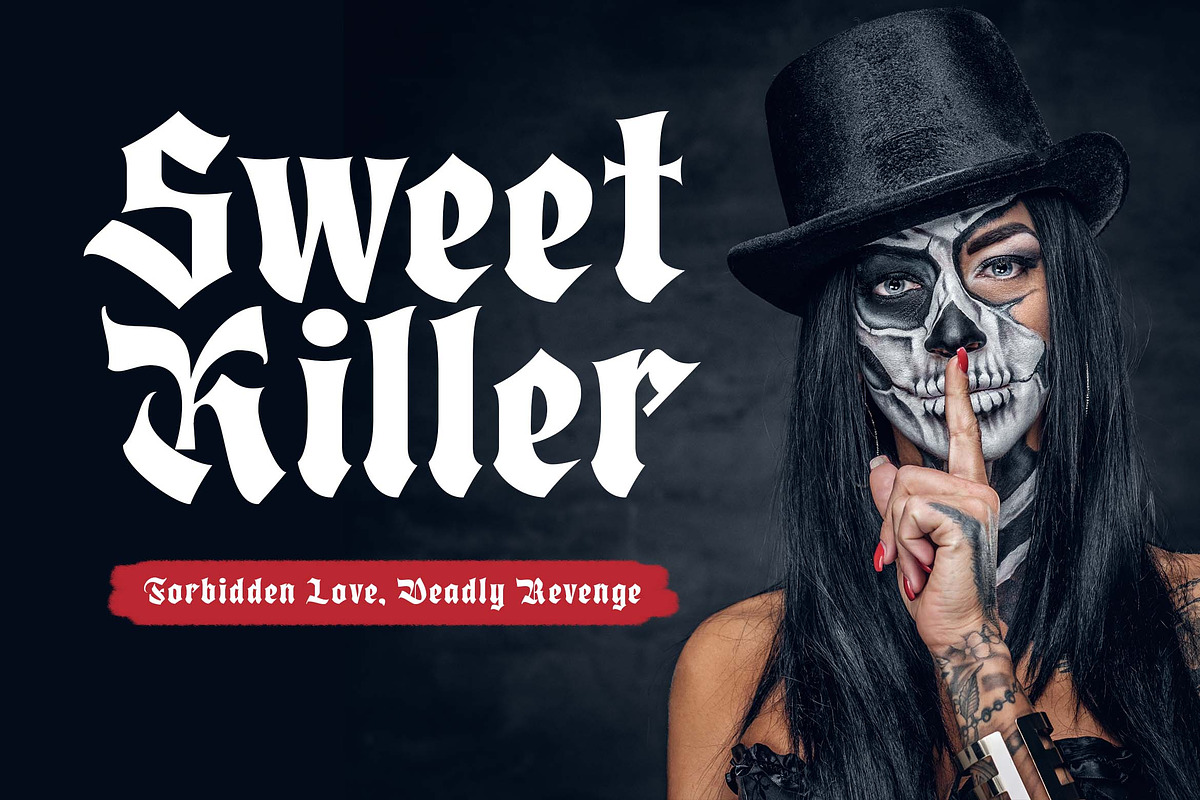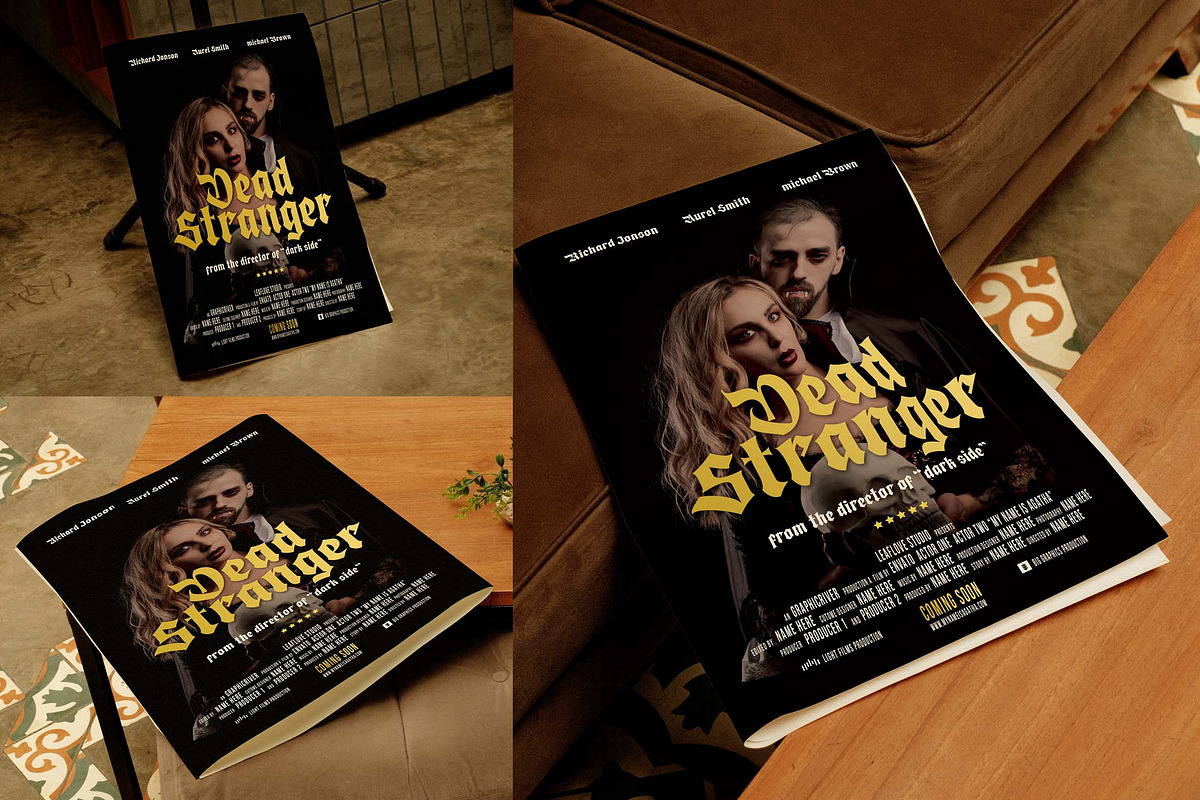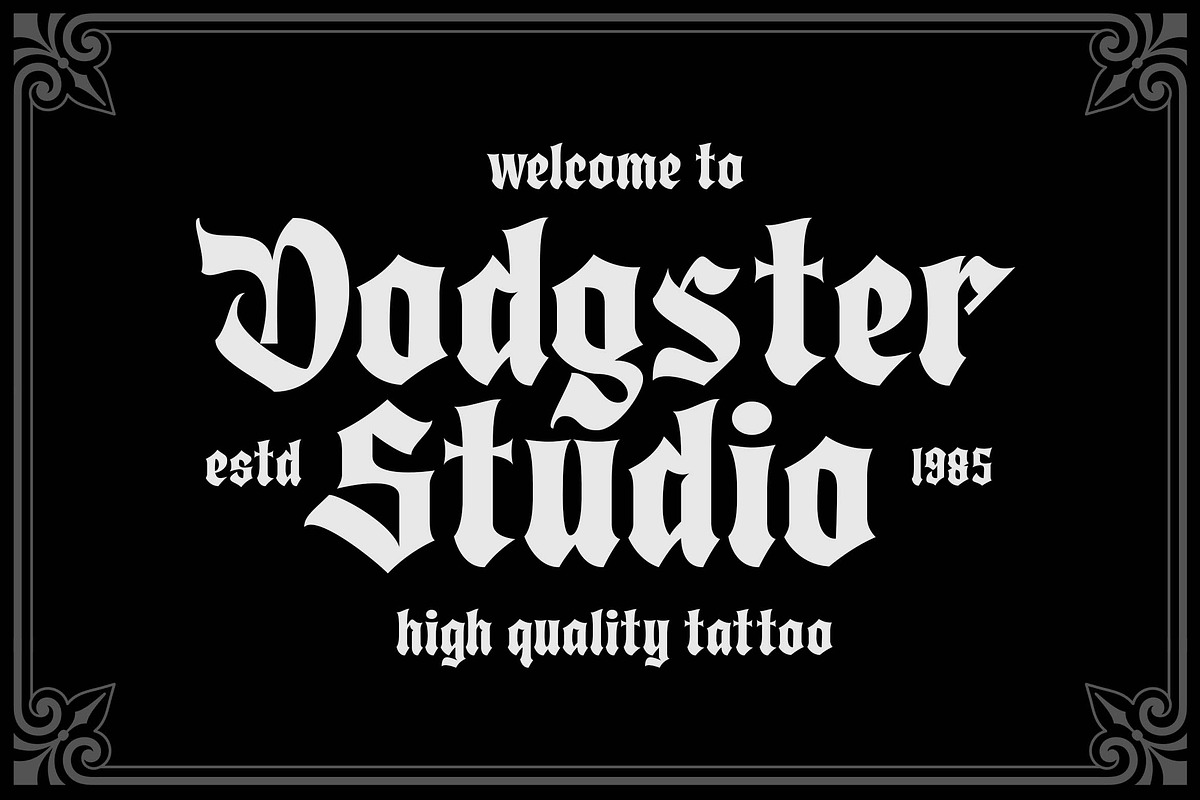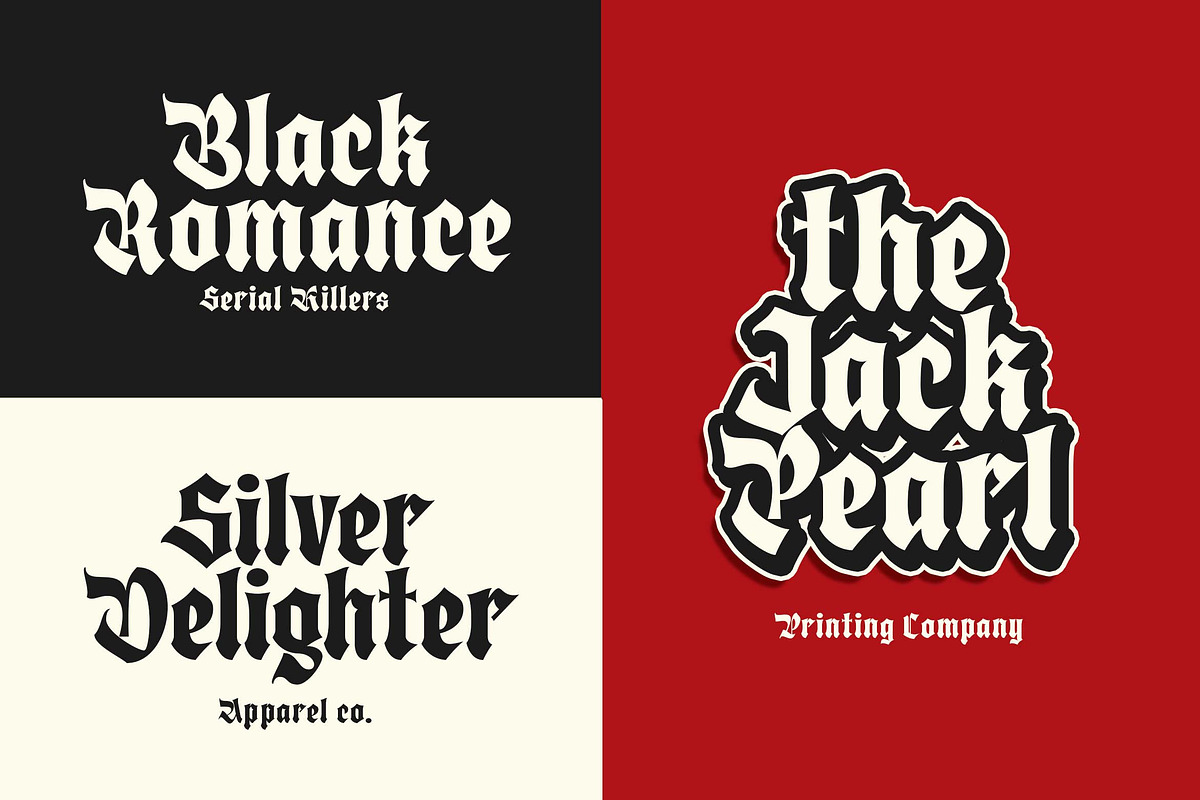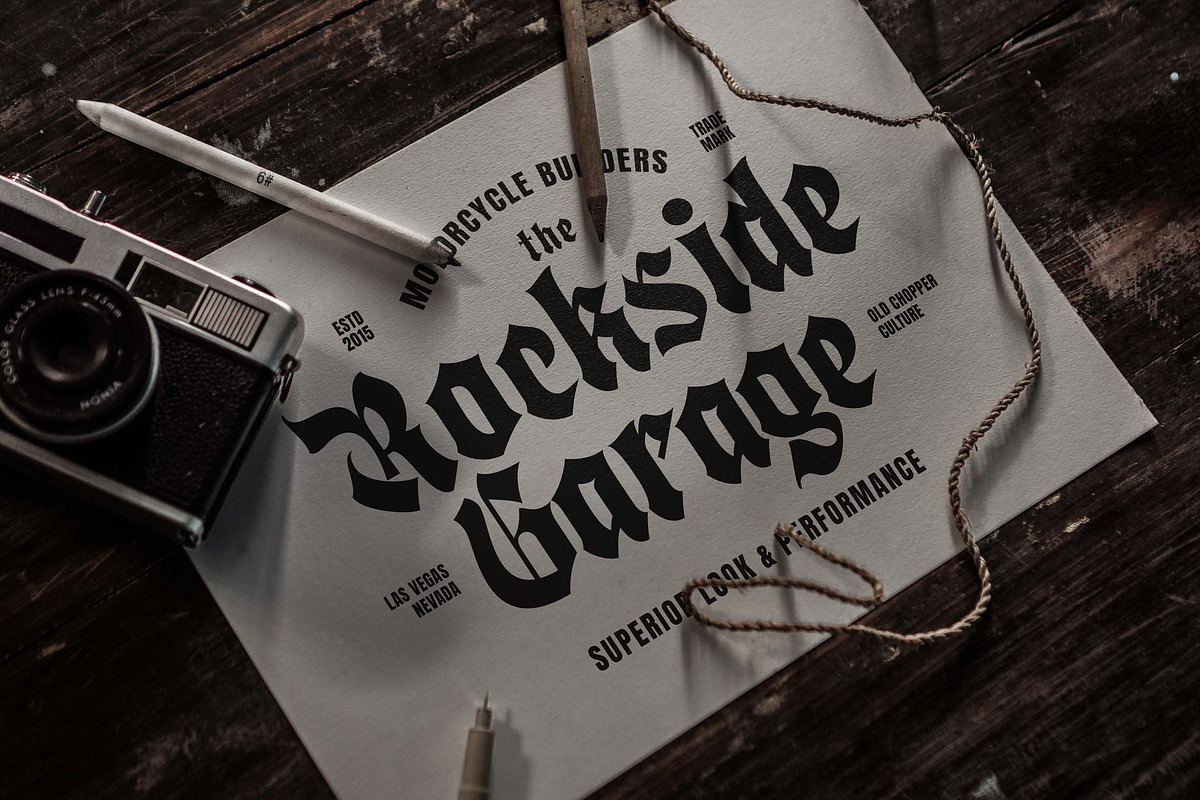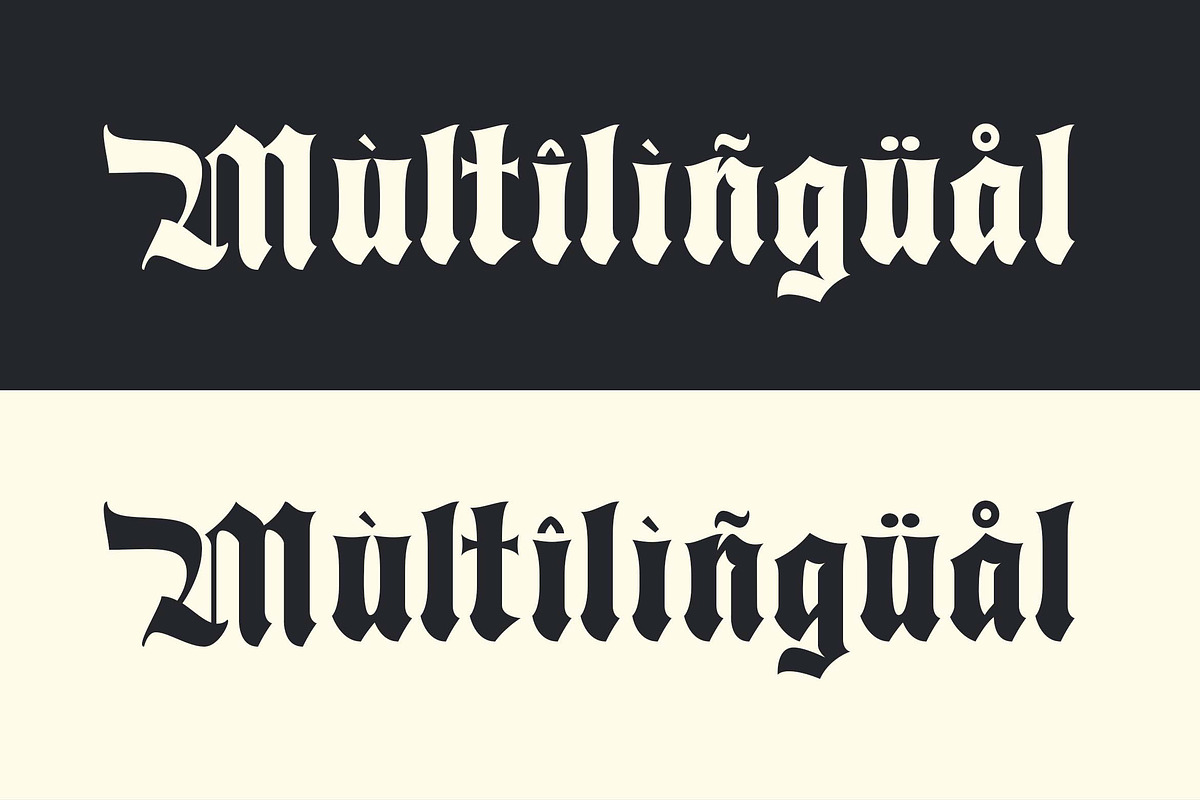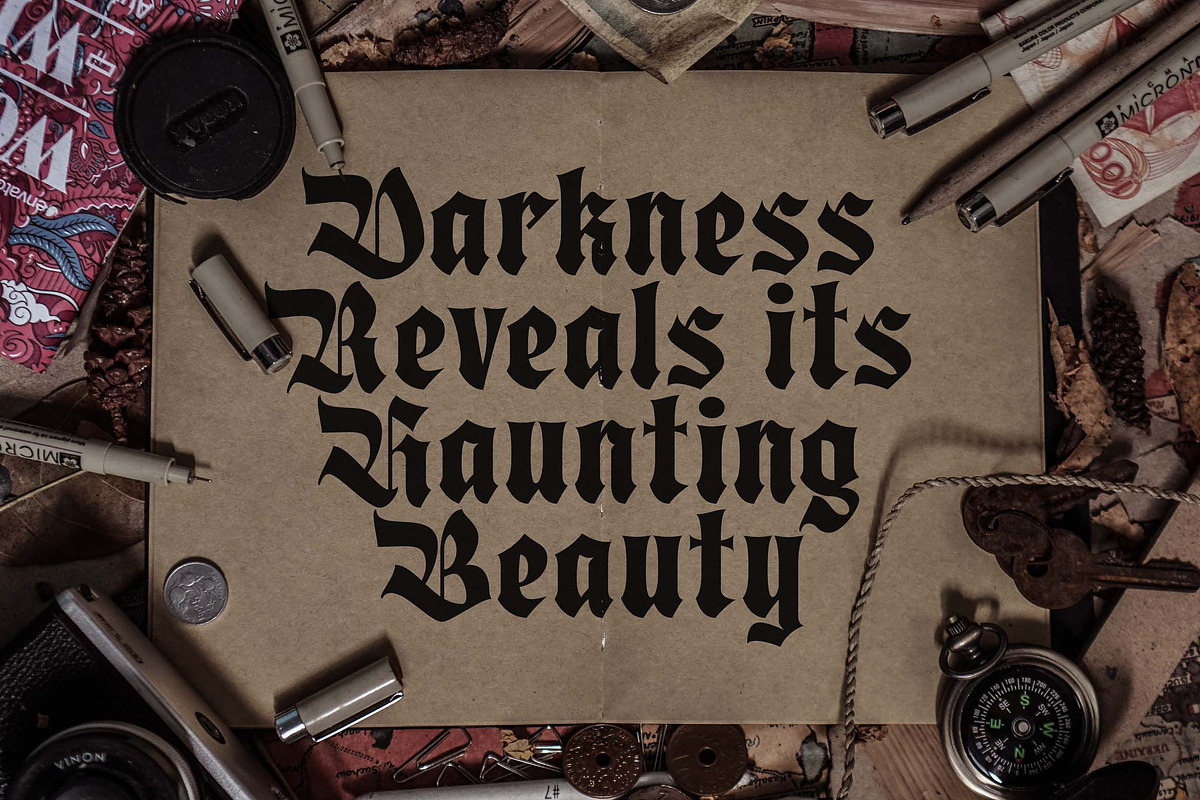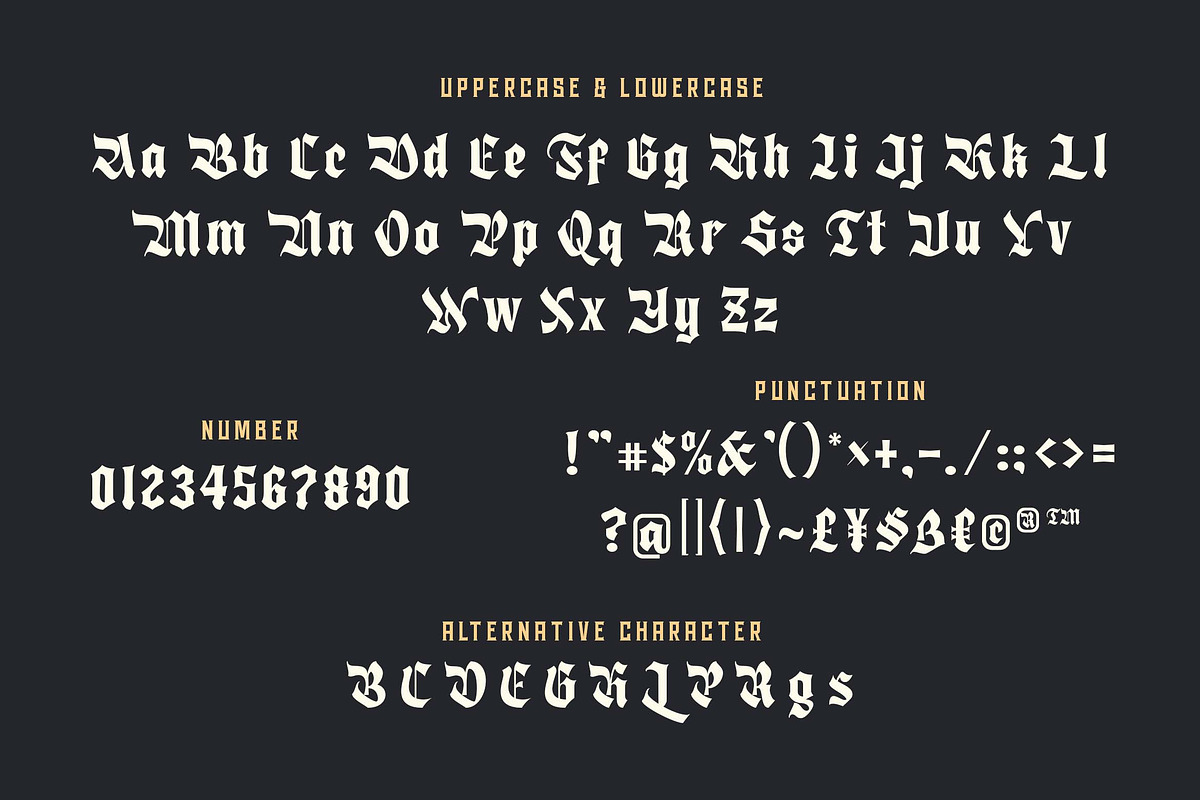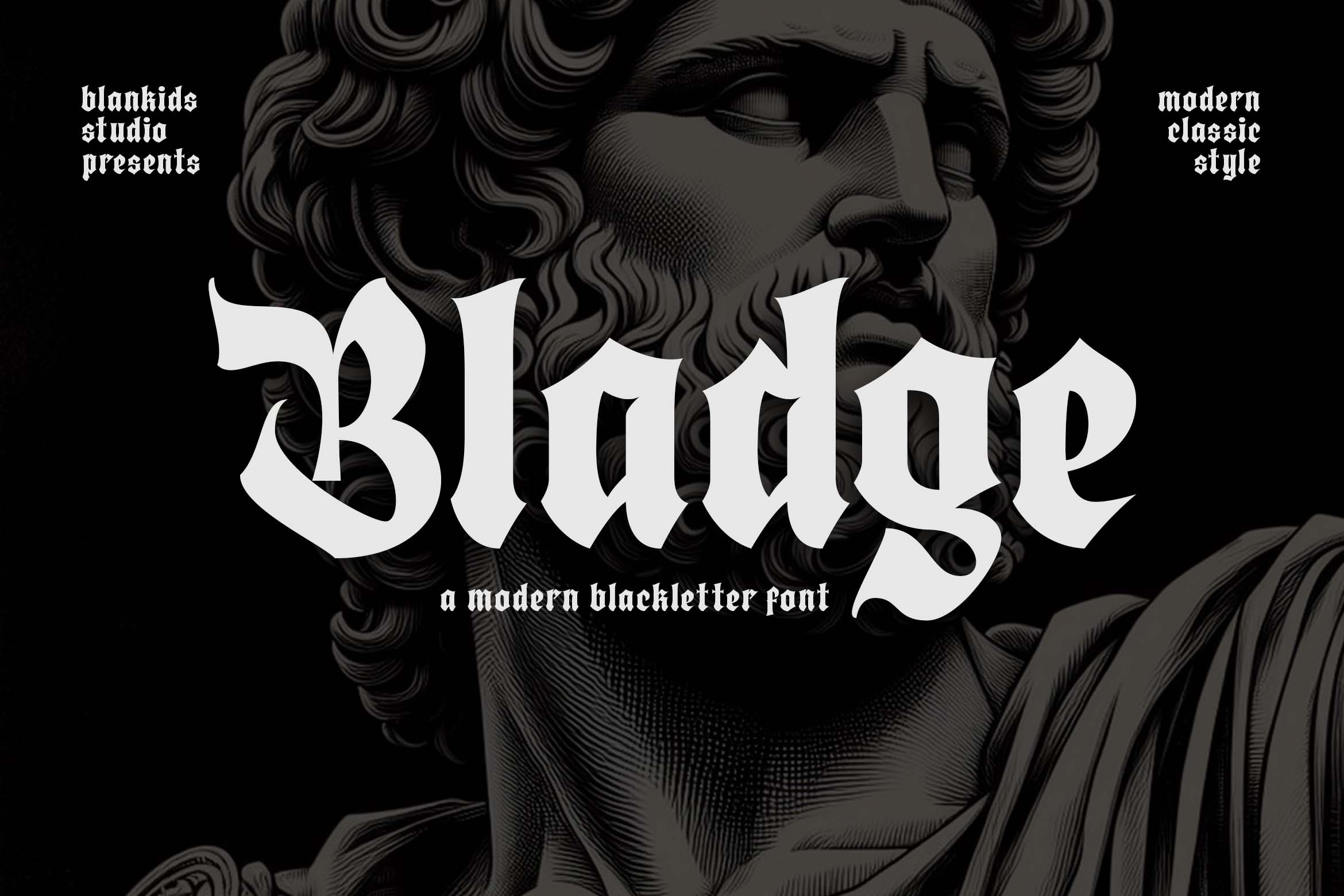
Bladge a Modern Blackletter Font
Introducing Bladge, a unique font that seamlessly blends the classic elegance of blackletter gothic with a contemporary flair. Designed to cater to your western and gothic-themed design needs, Bladge is the perfect choice for making a bold statement.
This versatile typeface includes:
- Uppercase and lowercase letters
- Alternative characters
Bladge’s distinctive style makes it an excellent choice for branding in various industries, especially for tattoo parlors, barbershops, and apparel. Elevate your design projects with the timeless yet modern aesthetic of Bladge, and leave a lasting impression with every word.